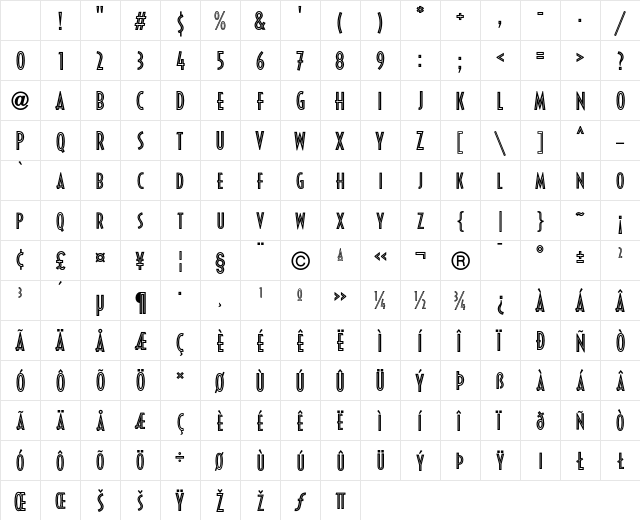
Complete Decotura Medium glyph index. Displaying only characters natively supported by Decotura Medium font.
Decotura is a composed and adaptable typeface that performs quietly and consistently across a wide range of design contexts.